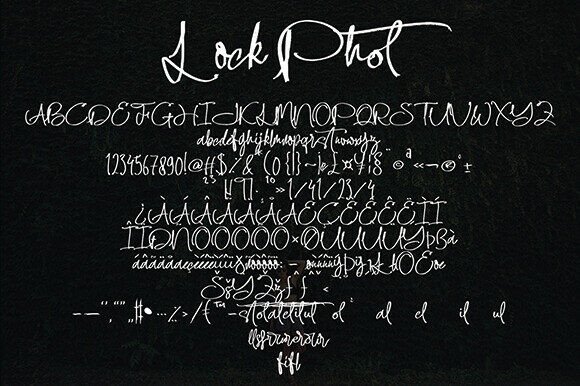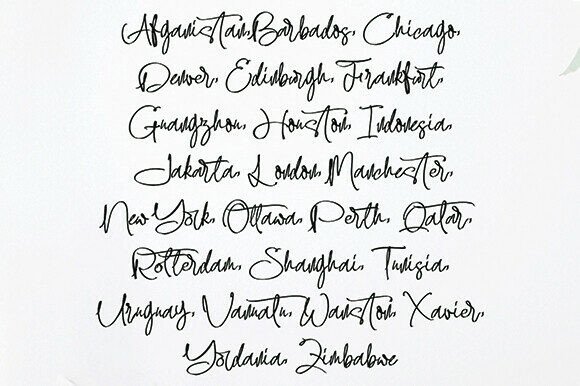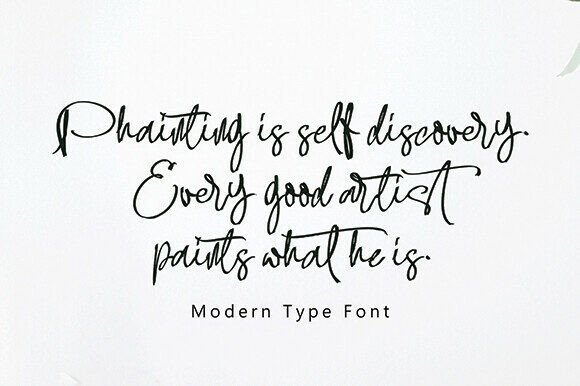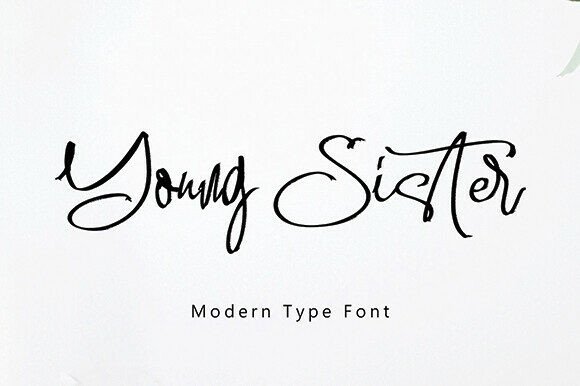
Introduction to Lock Phot Font
As a designer, have you ever stared at a blank canvas, waiting for inspiration to strike? The perfect project often begins with a single, striking element – and for many creatives, that element is the right font. Today, we’re shining the spotlight on Lock Phot Font, a game-changing script font that’s about to take your designs to the next level.
With its bold, hand-brushed texture and natural flow, Lock Phot Font is the perfect companion for any high-quality design project. Whether you’re working on a branding campaign, crafting a logo, or creating eye-catching social media graphics, this versatile font is sure to bring a touch of raw elegance and authenticity to your work.
Key Features of Lock Phot Font
- Designed with a unique and modern aesthetic, perfect for adding a touch of sophistication to any design.
- Perfect for use in a variety of creative projects, including logos, branding, and typography-based designs.
Honest Review: Lock Phot Font
I recently stumbled upon the Lock Phot Font, a design resource that caught my attention. I decided to give it a try and see how it performs in my creative project.
- High-quality design: The Lock Phot Font features crisp and clear characters, making it perfect for any design project.
- Limited styles: The Lock Phot Font only comes in one style, which may limit its use in certain design projects.
- No bold or italic variations: This font does not have bold or italic variations, which may not be ideal for projects that require emphasis.
Overall, the Lock Phot Font is a solid addition to any design resource collection. While it has some limitations, its high-quality design and transparent background make it a great choice for many creative projects. With a little creativity, you can work around its limitations and achieve professional-looking results.
Lock Phot Font
Tips for Getting the Most Out of Lock Phot Font
To get the most out of Lock Phot Font, be sure to use it with a transparent background to achieve a seamless look. You can also experiment with different font sizes and styles to add visual interest to your designs.
Common Use Cases for Lock Phot Font
Lock Phot Font is perfect for use in creative projects such as logos, business cards, social media graphics, and more. Its high-quality design and transparent background make it an excellent choice for any project where a professional look is required.